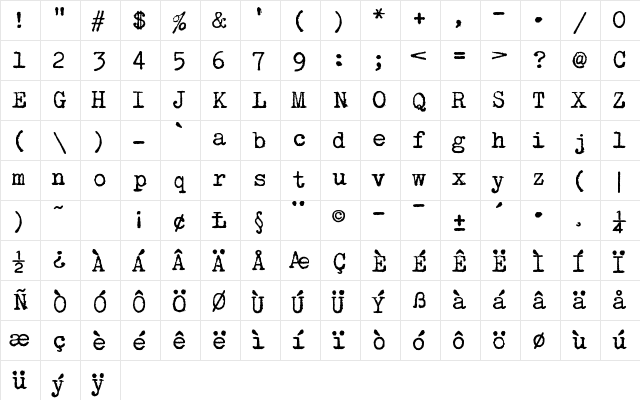
HOLLYWOOD STARFIRE Normal Free Font
HOLLYWOOD STARFIRE Normal
Foundry: Lukas Krakora
Designer: Lukas Krakora
Design Context for HOLLYWOOD STARFIRE
HOLLYWOOD STARFIRE echoes the hand-painted signage and woodblock typography of the American frontier, with a warm, rugged personality.
Font Pairing: Combine HOLLYWOOD STARFIRE with a simple slab or neutral sans - period-accurate companions reinforce the vintage feel without competing for attention.
Pro Tip: Use HOLLYWOOD STARFIRE for short, impactful bursts of text - it shines in poster headlines and product names rather than extended copy.